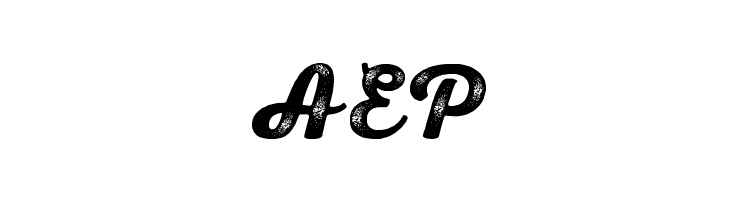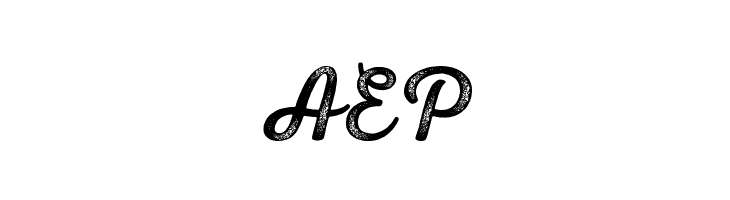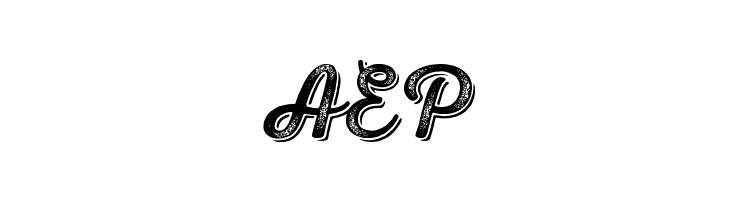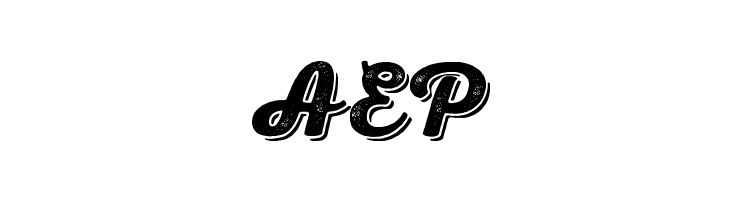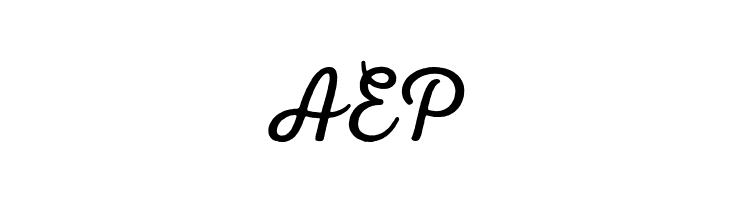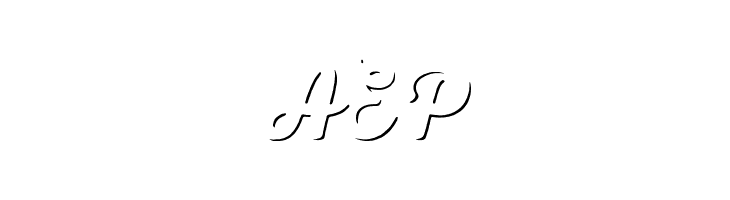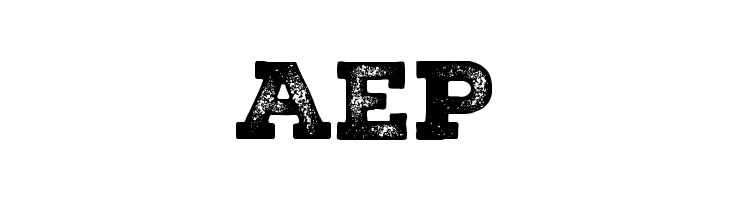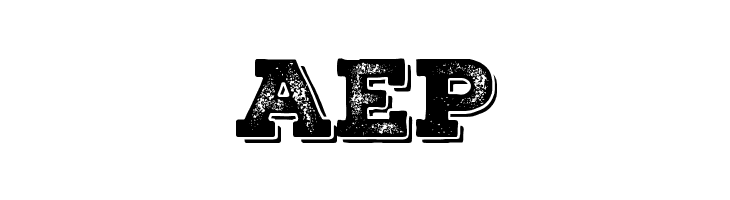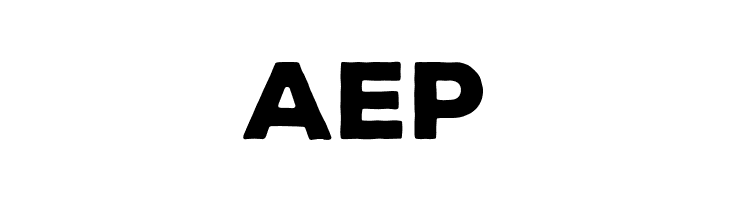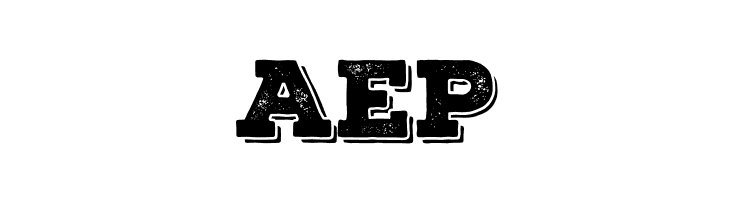
• Nexa Rust Extras Demo Icons
A vintage collection of rustic, handcrafted icons and symbols.
• Nexa Rust Handmade Demo Extended
A handcrafted, rustic font with a playful and casual style.
• Nexa Rust Sans Demo Black
A bold, rustic font with a distressed texture and industrial feel.
• Nexa Rust Script B-Trial 3
A bold, textured script font with a vintage, handcrafted style.
• Nexa Rust Script B-Trial Shadow
A dynamic script font with a shadow effect, offering a playful and energetic style.
• Nexa Rust Script B-Trial Shadow 2
A bold, script font with a shadow effect, offering a vintage and decorative style.
• Nexa Rust Script L 0
A casual, cursive script font with a friendly and handwritten style.
• Nexa Rust Script L Demo 1
A smooth, flowing script font with a casual, handwritten style.
• Nexa Rust Script R-Trial 4
A bold, textured script font with a rustic, hand-drawn appearance.
• Nexa Rust Script R-Trial Shadow
A dynamic script font with a shadow effect, offering elegance and playfulness.
• Nexa Rust Script R-Trial Shadow 4
A bold, shadowed script font with a rustic, handcrafted texture.
• Nexa Rust Slab Demo Black Shadow 1
A bold, textured slab serif font with a vintage shadow effect.
• Nexa Rust Slab-Trial Black 3
A bold, distressed slab serif font with a vintage, rugged appearance.
• Nexa Rust Slab-Trial Black Shadow 3
A bold, distressed slab serif font with a vintage, industrial style.